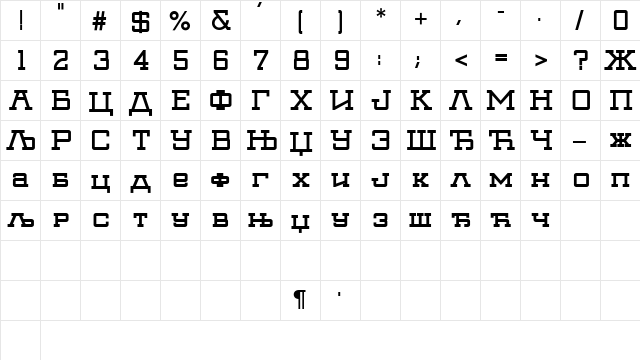
Goliat Cirilica Bold
Design Context for Goliat Cirilica Typeface
Goliat Cirilica offers clean, dependable letterforms without strong stylistic allegiance, making it a practical choice for designers who need flexibility. The heavy weight commands attention and anchors typographic hierarchies.